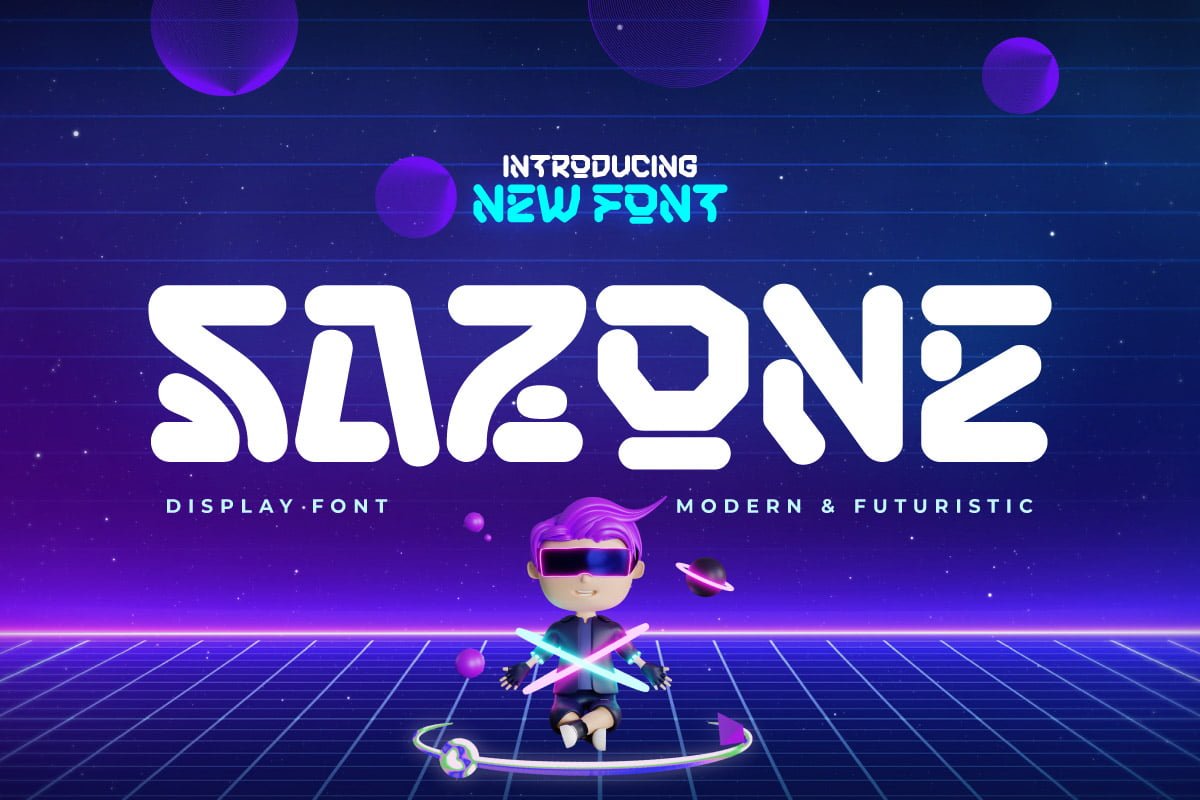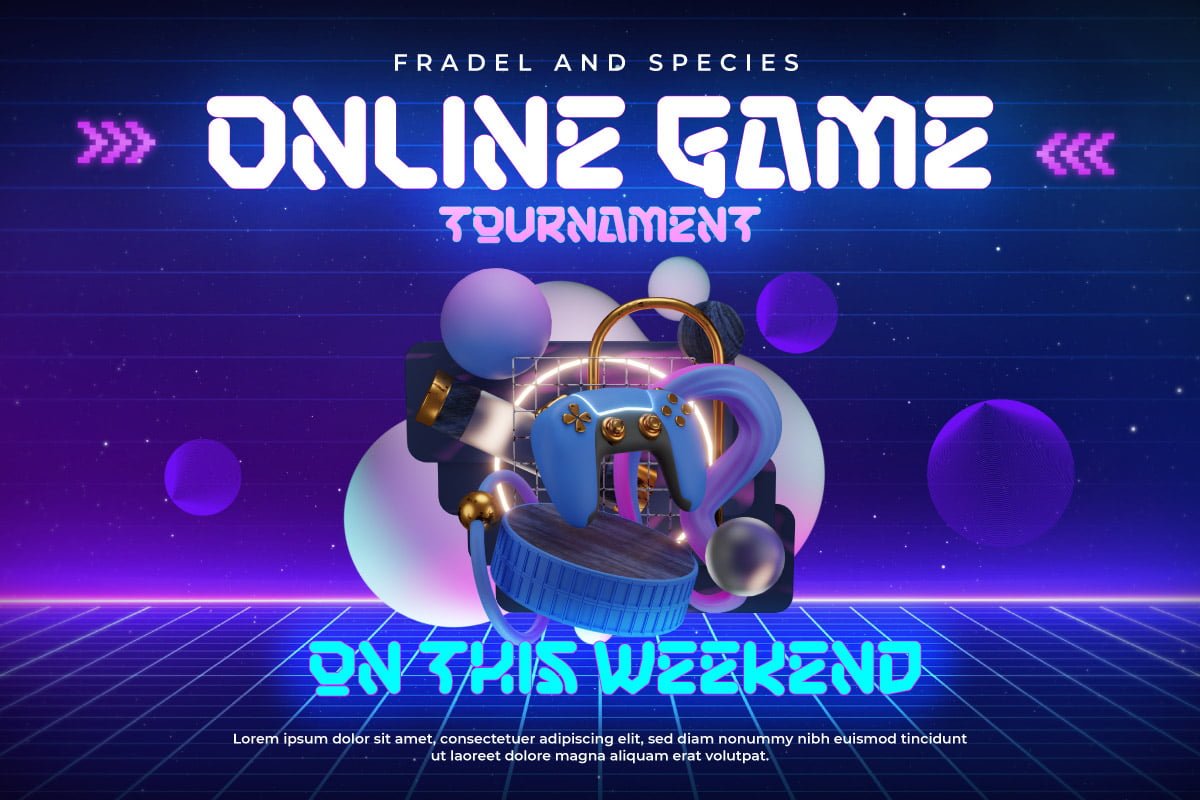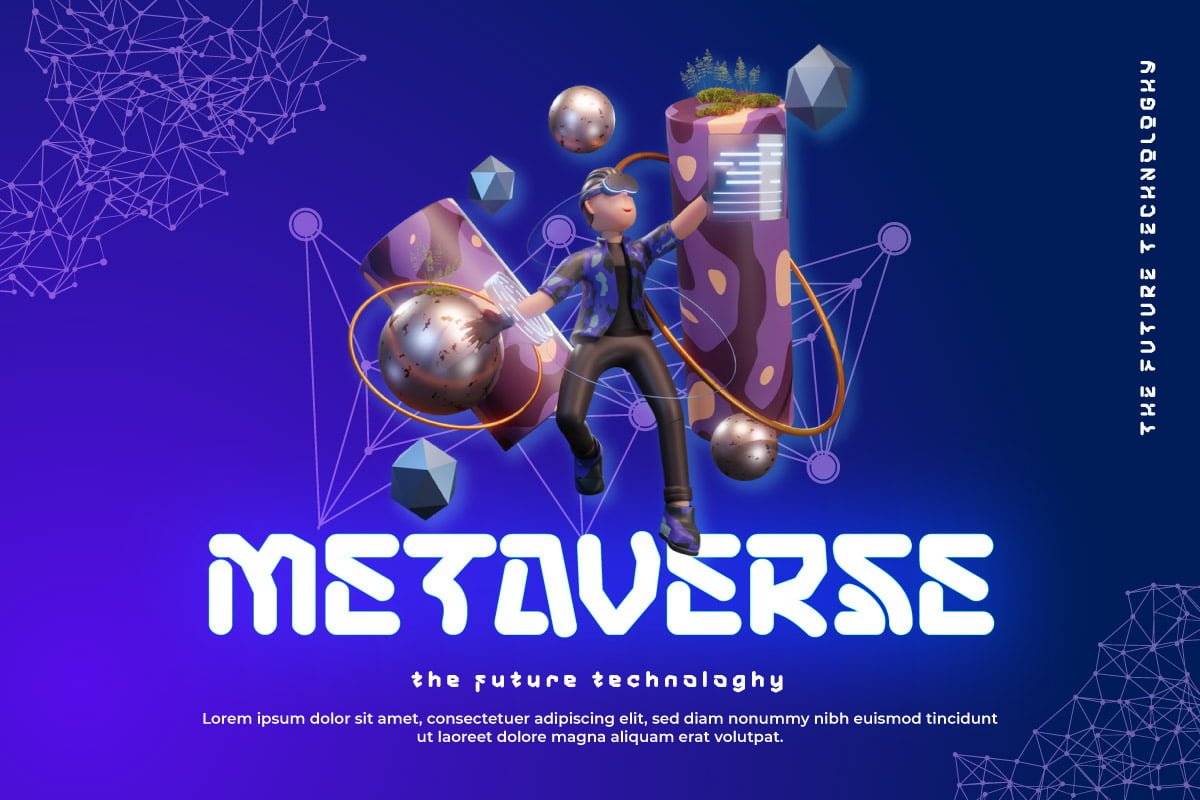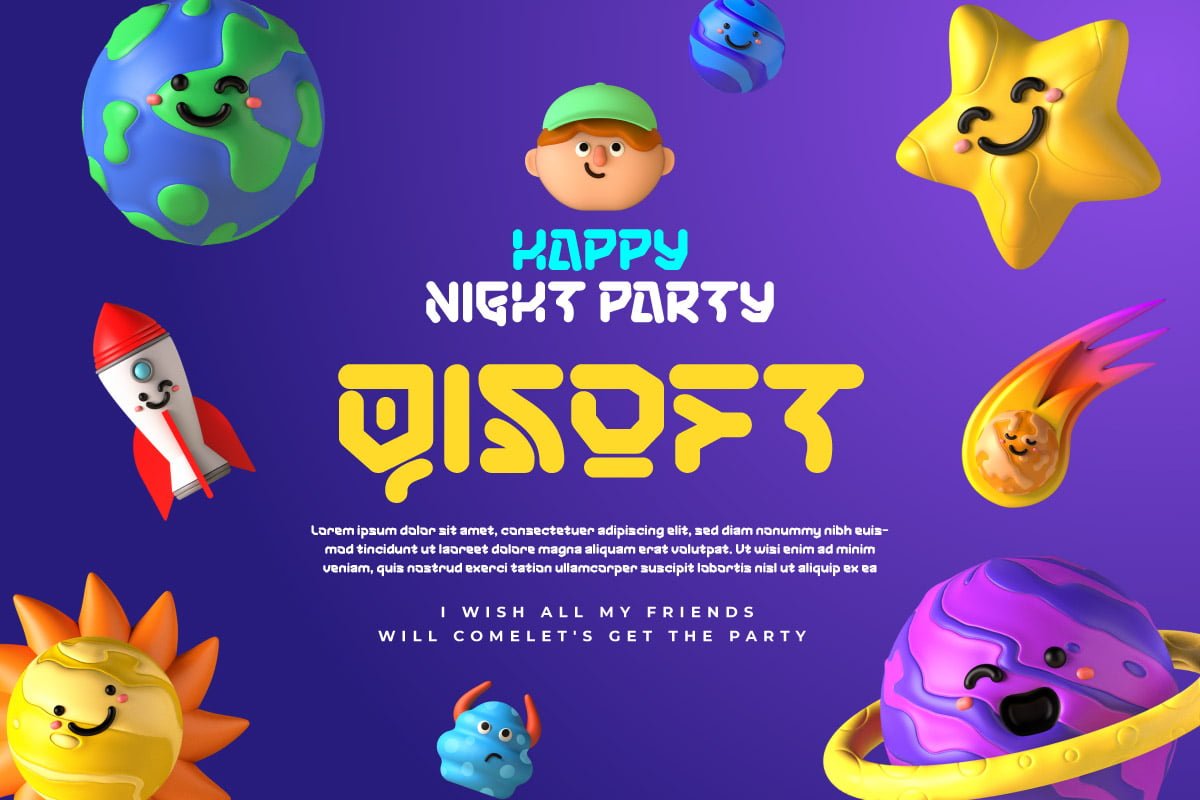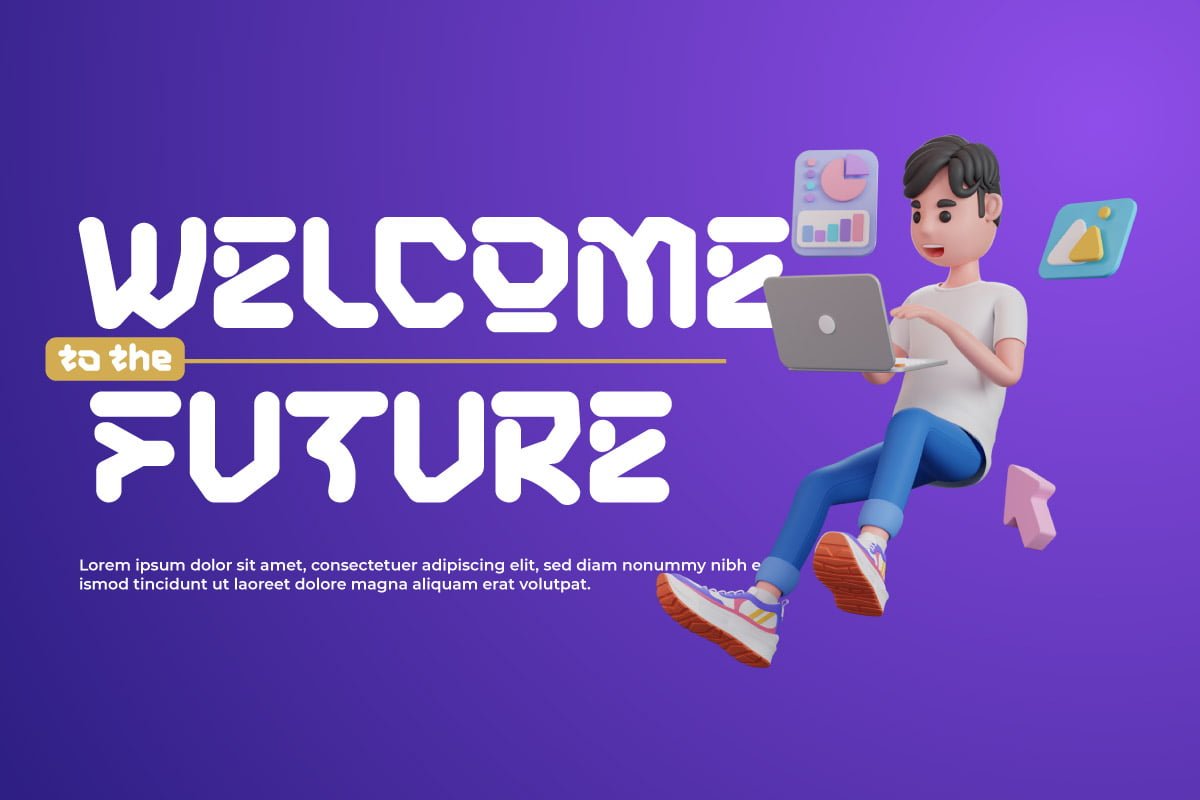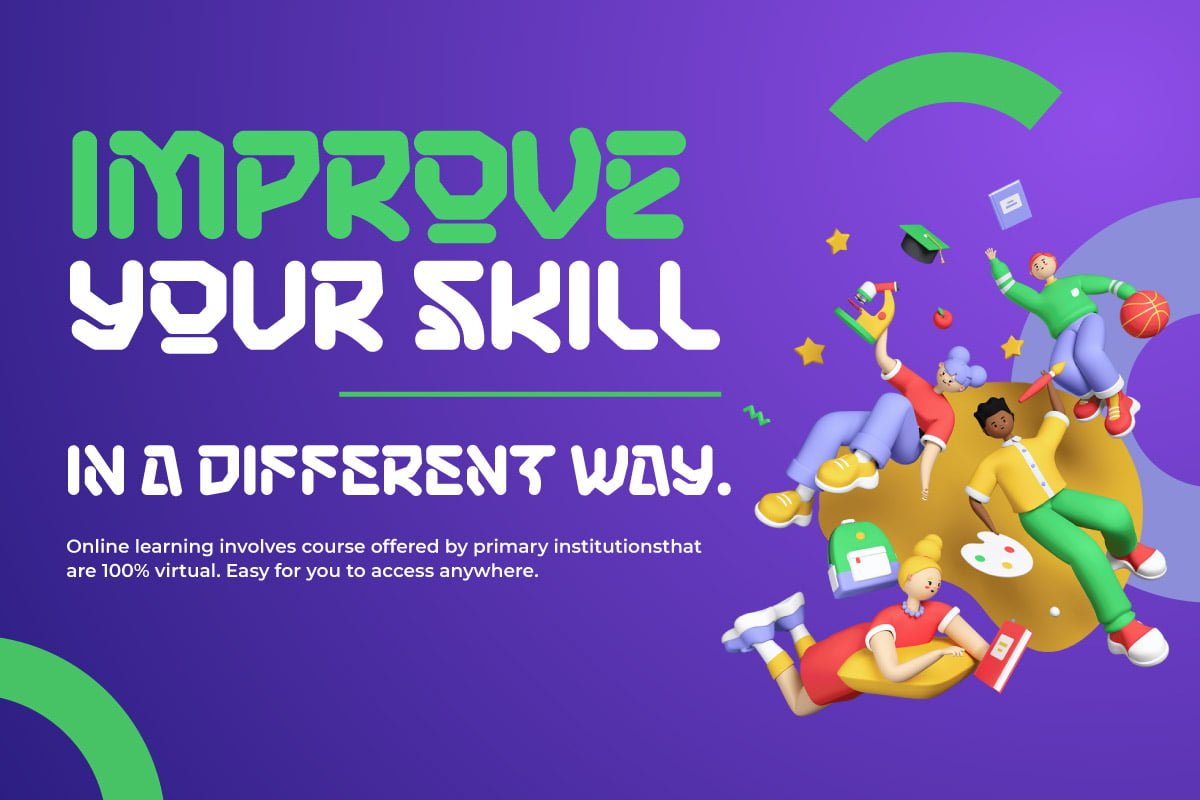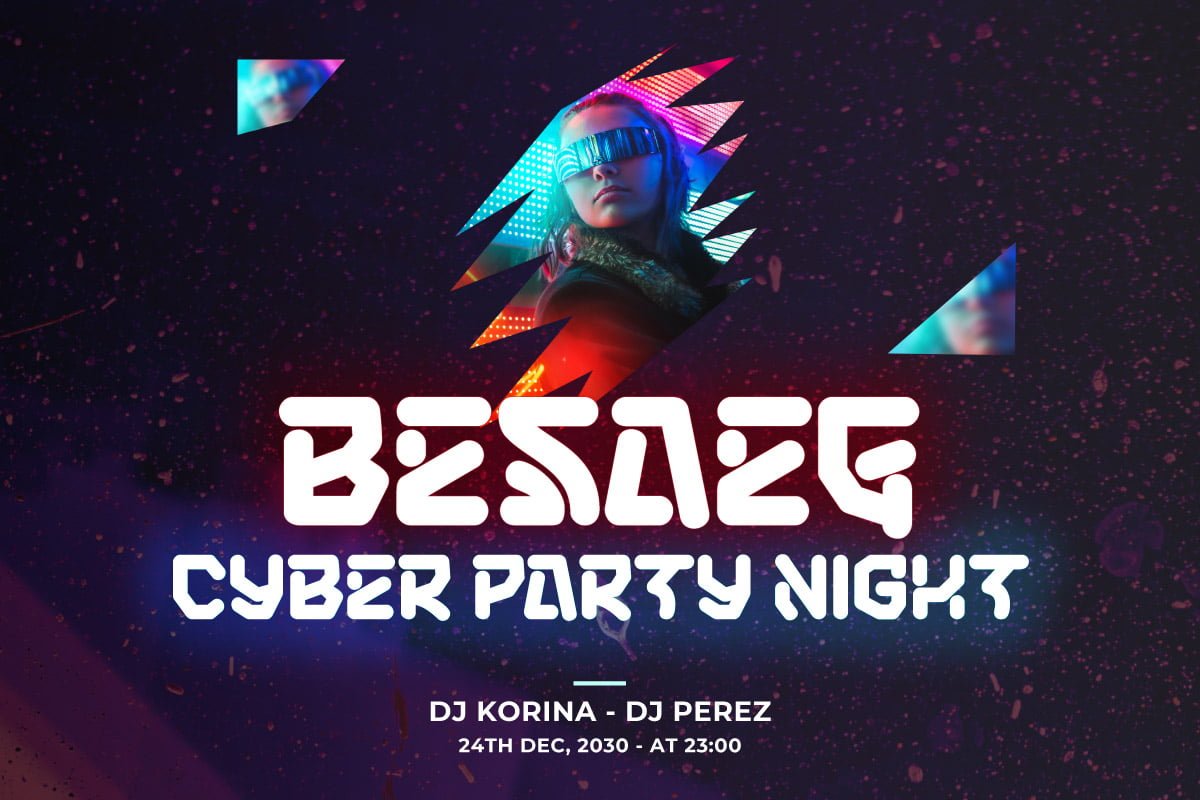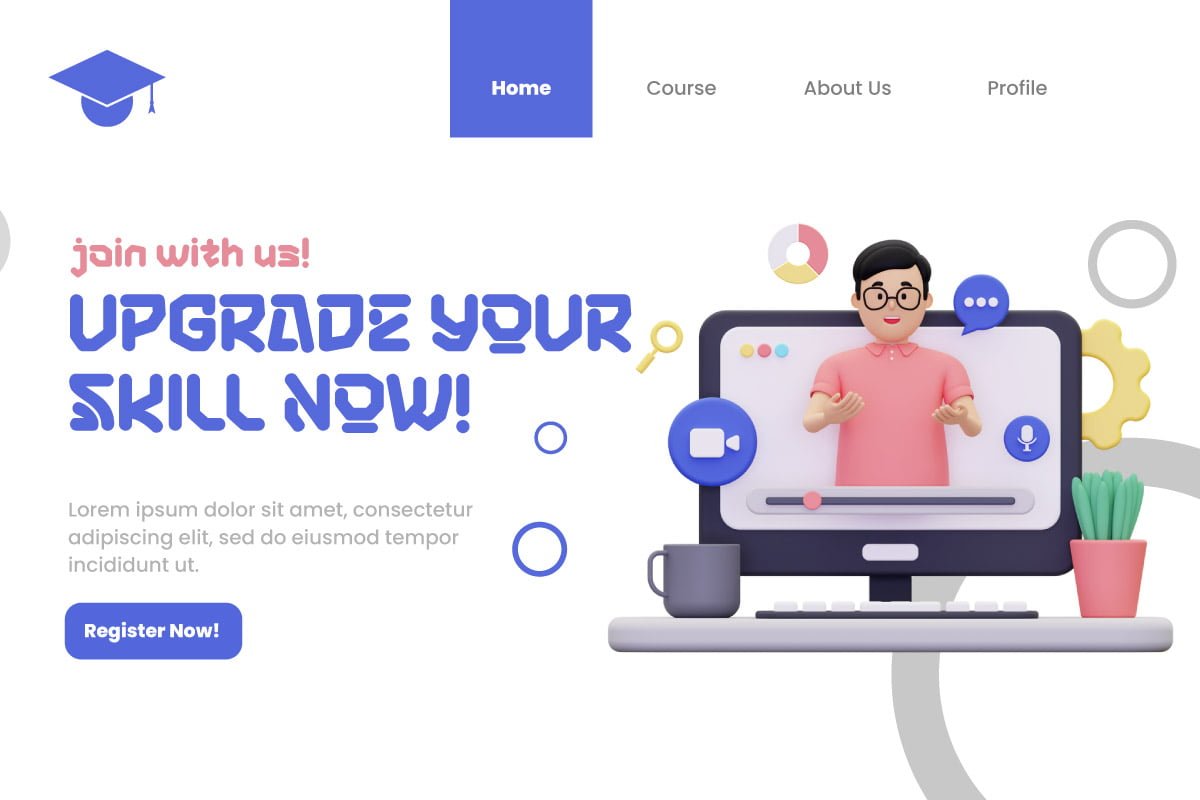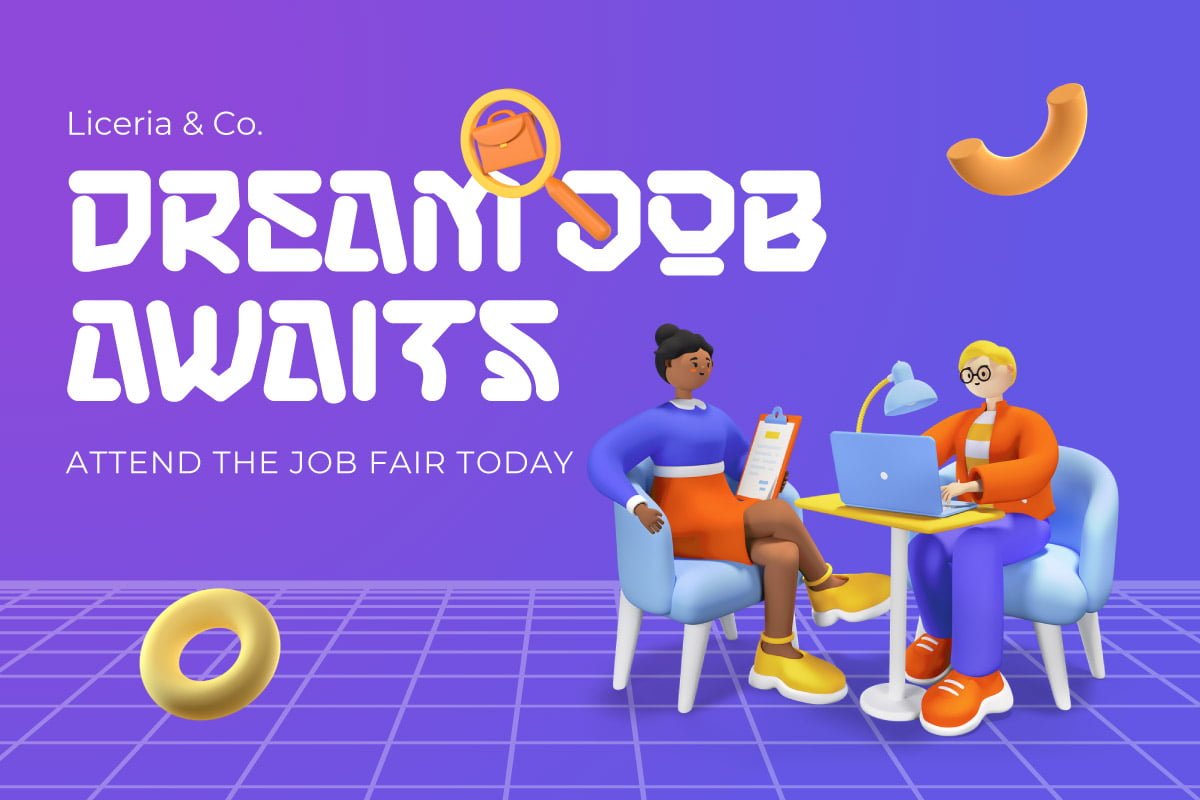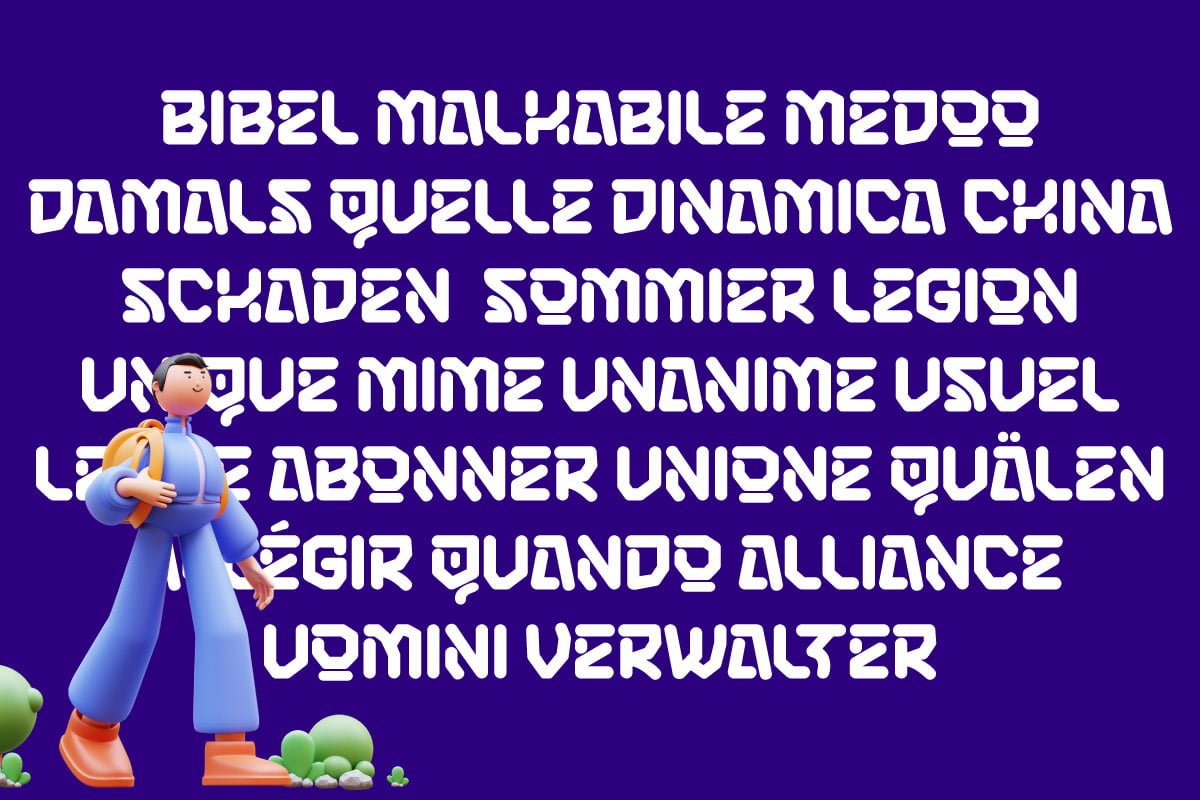
SAZONE – Futuristic Font
Welcome to Sazone, a font that represents the essence of the future with a stunning modern and futuristic twist. Are you looking for the perfect solution for modern, futuristic, sci-fi, and future-themed projects? Sazone is the answer.
Sazone is a font specially designed to bring an extraordinary and stunning visual experience. Each letter is unique and conveys a sense of the future, showing astonishing sophistication and innovation. The main benefit of Sazone is its ability to deliver unrivaled style. With a unique and exclusive character, this font will give a modern, classy, and futuristic look to every text you use. Every detail is carefully thought out to create a standout and stunning impression. Also, multilingual support, allows you to display text in multiple languages without restrictions. This gives you the flexibility to reach a global audience and convey messages effectively in the most relevant contexts.
Take your projects to the next level with Sazone. Let this font be the catalyst for your visual success in creating eye-catching future looks. It doesn’t matter whether you are designing logos, posters, or websites, Sazone will give off a distinctive feel, exude sophistication, and deliver an unforgettable experience.
Explore endless possibilities and make your vision come true with Sazone. It’s time to enter a spectacular and amazing future. Choose Sazone and let this font become an indispensable part of your vibrant, modern, futuristic, sci-fi, and future projects.